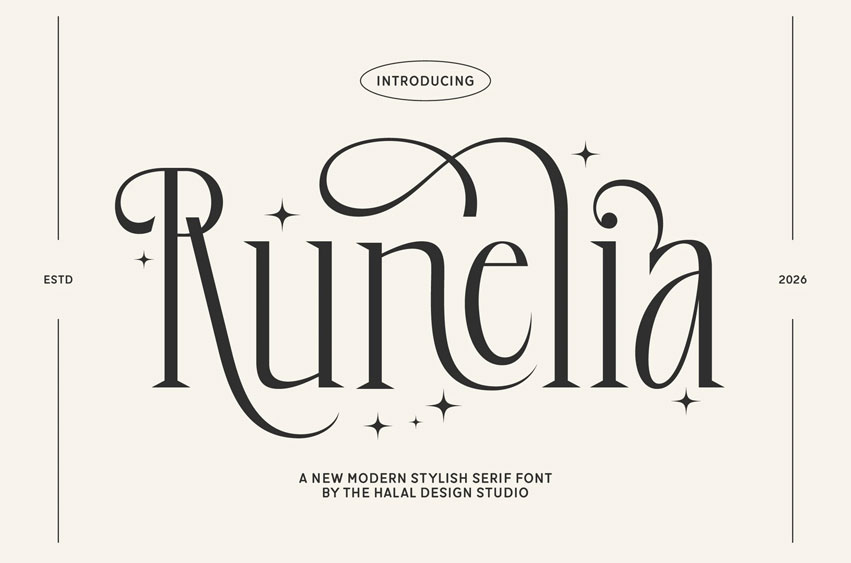
Runelia Font
Runelia Font is a modern elegant serif font crafted to deliver a luxurious and timeless look for your design projects. Featuring high contrast strokes, refined curves, and graceful letterforms, it is perfect for luxury branding, fashion logos, editorial layouts, packaging, and invitations.
This versatile typeface combines classic sophistication with contemporary style, making it ideal for both print and digital use. With ligatures, alternates, and multilingual support, Runelia allows you to create distinctive and professional typography effortlessly.
• Ligatures & Alternates – Enhanced typographic flexibility
• Multilingual Support – Supports multiple languages